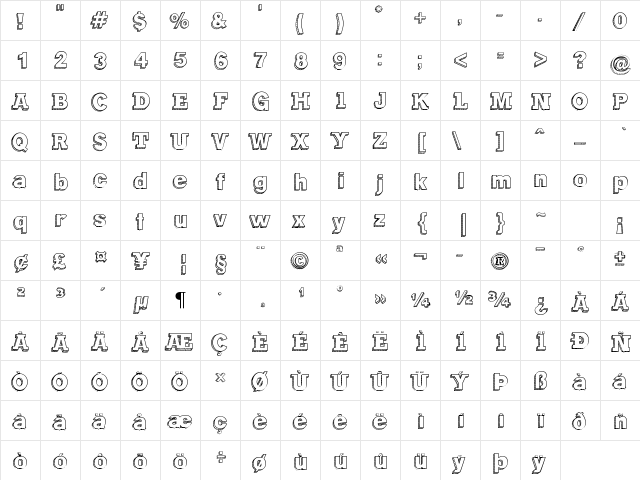
Gregory Packaging Regular
Design Context for Gregory Packaging Typeface
Gregory Packaging is a composed and adaptable typeface that performs quietly and consistently across a wide range of design contexts.